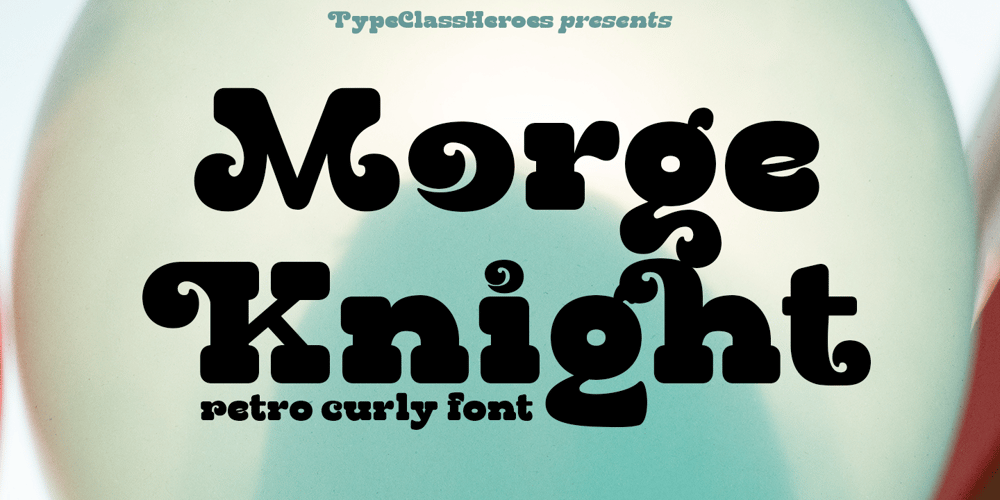
Morge Knight Font Family was designed by Suandana ipandemade and published by TypeClassHeroes. Morge Knight contains 2 styles and family package options. Morge Knight is a retro font come with curly and rounded old 80’s retro style serif. You can explore and combine creating rhythm for comfortable reading. Vintage and refined use this font for any branding, product packaging, invitation, quotes, headline, label, poster, logo etc.Feature Uppercase & Lowercase Number & Symbol International Glyphs Multilingual support Alternative Ligature Feel free to drop us a message any time and follow my shop for upcoming updatesHope you enjoy it.